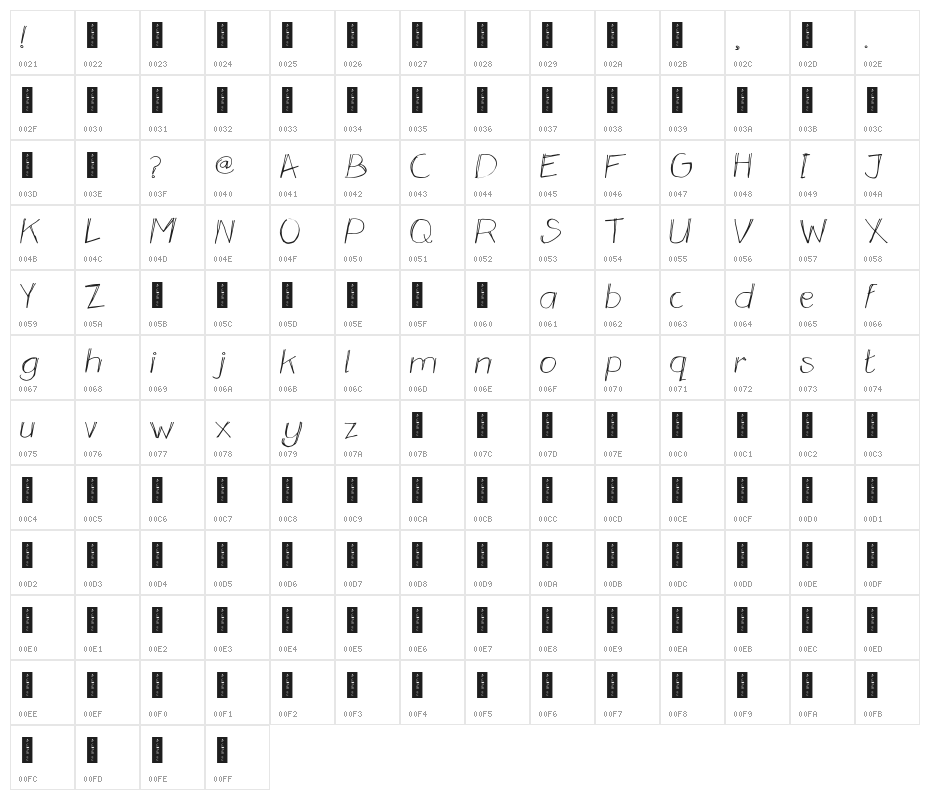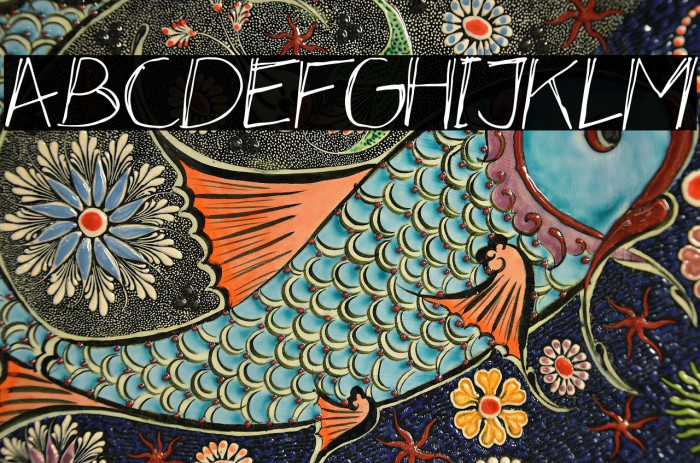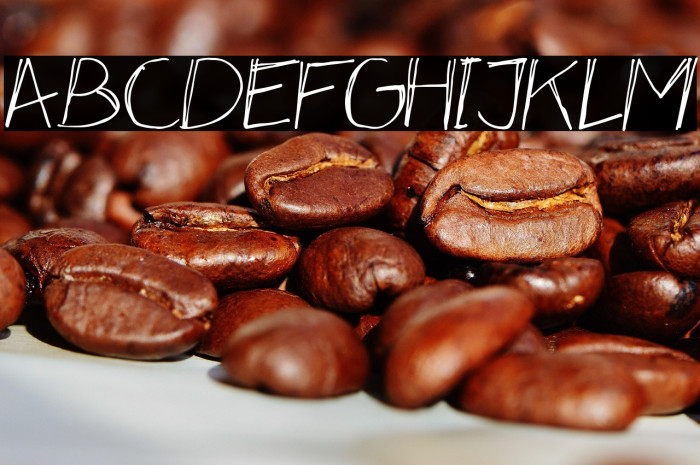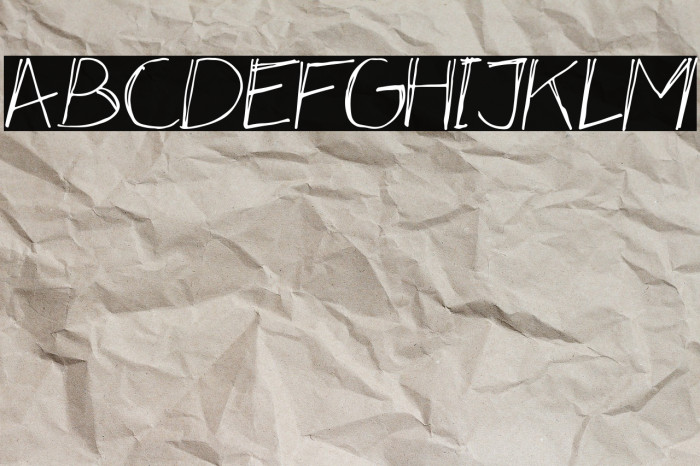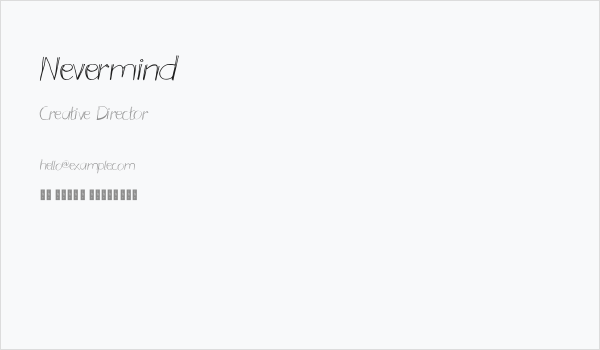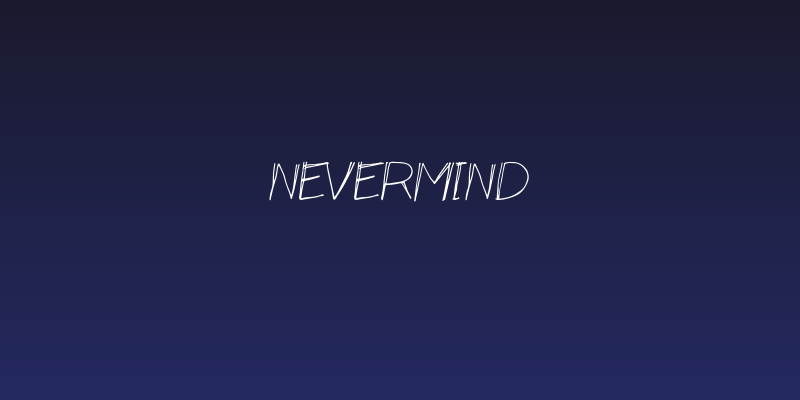
Nevermind Font
Nevermind Description
This font features a distinctive handwritten style with a playful and casual appearance. The characters are slightly slanted, giving a sense of movement and dynamism. The strokes are uneven, with some letters having thicker lines, adding a touch of informality and charm. The uppercase and lowercase letters maintain a consistent style, with rounded edges and a flowing script-like quality. The font lacks certain special characters, which may limit its use in some contexts. Overall, it exudes a friendly and approachable vibe, making it suitable for creative and informal projects.